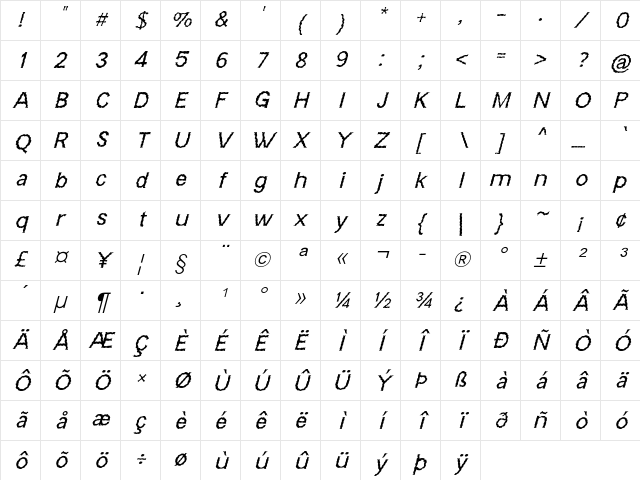
Barbario Italic
Design Context for Barbario
Barbario is a composed and adaptable typeface that performs quietly and consistently across a wide range of design contexts. The slanted form adds forward momentum and visual energy.
Pro Tip: Use Barbario for emphasis, pull quotes, and subheadings where its slanted energy can add rhythm to the layout.